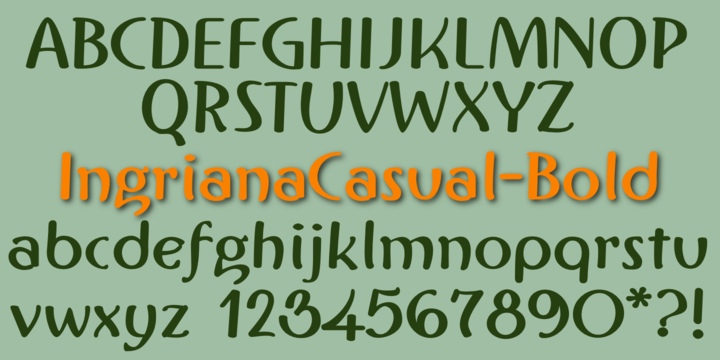
Ingriana Casual Font
Ingriana Casual Font is perfect for relaxed café branding, casual dining restaurant menus, weekend lifestyle marketing, leisure activity promotions, friendly neighborhood business signage, laid-back boutique stores, casual social media graphics, and comfortable home décor materials where relaxed comfort and approachable ease are emphasized.
What makes Ingriana Casual Font so exciting is its effortless ability to convey relaxed comfort and casual elegance through naturally flowing letterforms that embody the easy-going charm of leisurely living while maintaining excellent readability for everyday communications. The comfortable character design reflects the unpretentious authenticity and genuine warmth that makes casual experiences truly enjoyable.
The Ingriana Casual Font family includes light, regular, medium, and bold weights, with relaxed script variants and casual ornamental elements that provide comprehensive tools for creating approachable lifestyle branding and comfortable everyday design systems.
This welcoming typeface captures the essence of casual living, combining relaxed authenticity with contemporary lifestyle marketing requirements. The Ingriana Casual Font Free Download gives casual brands access to typography that communicates comfort and approachable lifestyle appeal.
The font's natural character flow and comfortable proportions create immediate associations with relaxed living and casual social experiences. Each letterform has been designed to evoke the ease and comfort that defines enjoyable leisure time and casual lifestyle choices.
Ingriana Casual Font excels in creating friendly brand experiences that make customers feel comfortable and genuinely welcome. The typeface's casual personality makes it ideal for neighborhood businesses, casual dining establishments, and lifestyle brands targeting audiences seeking comfortable, unpretentious experiences.
From weekend farmers markets to casual family restaurants, this font brings genuine comfort that appeals to customers seeking relaxed, authentic lifestyle experiences. The versatile design maintains its casual character across both traditional neighborhood applications and modern digital lifestyle platforms.